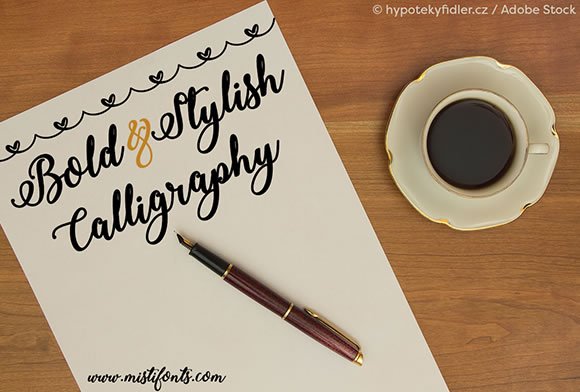
When Words Become Art: The Magic of Bold & Stylish Calligraphy Font
Have you ever been in the middle of a creative project, and suddenly, a spark of inspiration hits you? Maybe it’s the way the light falls on your workspace, or the sound of your favorite music playing in the background. Whatever it is, it’s that moment when everything comes together, and your ideas start flowing. For designers, this moment is often the result of finding the perfect font to bring their vision to life. And that’s where Bold & Stylish Calligraphy Font comes in – a game-changing addition to any design project.
Developed by Misti’s, this stunning font is designed to add a touch of elegance and sophistication to any text. Its bold and stylish lines make it perfect for headings, titles, and even entire paragraphs. Whether you’re working on a wedding invitation, a business logo, or a social media campaign, Bold & Stylish Calligraphy Font is sure to elevate your design to the next level. And as a designer, you know how valuable it is to have a versatile font that can adapt to any project.
Key Features of Bold & Stylish Calligraphy Font
- Unique Characteristics: Hand-drawn calligraphy style with bold and stylish lines, perfect for headings and titles
Designer Review: Bold & Stylish Calligraphy Font
The Bold & Stylish Calligraphy Font is a statement piece for any design project. Here’s my honest review.
- The font is incredibly elegant and sophisticated, making it perfect for high-end branding, wedding invitations, or luxury packaging.
- The bold and stylish feel is consistent throughout the font, making it easy to use and recognize.
- The font is highly customizable, with various weights and styles available to suit different design needs.
- The font may be too bold for some designs, making it difficult to read in certain contexts.
- The font lacks versatility, making it less suitable for everyday use or casual designs.
- The font may not be optimized for digital use, leading to potential readability issues on smaller screens.
Overall, the Bold & Stylish Calligraphy Font is a stunning addition to any design project. While it may have some limitations, its elegance and sophistication make it a great choice for high-end designs. However, it may not be the best fit for everyday use or casual designs.
The Bold & Stylish Calligraphy Font is perfect for:
- Event signage and banners
- Marketing materials and promotional items
Great Vibes is a beautiful, elegant calligraphy font perfect for creating a sophisticated and luxurious feel. It is ideal for use in wedding invitations, branding, and high-end marketing materials. Great Vibes is more refined and polished compared to Bold & Stylish Calligraphy Font, making it a great choice for formal and high-end projects.
Carolyna Pro is a modern calligraphy font that combines elegance and sophistication with a touch of whimsy. It is perfect for use in invitations, branding, and advertising materials. Compared to Bold & Stylish Calligraphy Font, Carolyna Pro has a more modern feel and is ideal for projects that require a mix of elegance and playfulness.
Alex Brush is a handwritten calligraphy font that has a personal and emotional feel to it. It is ideal for use in greeting cards, invitations, and personal branding materials. Alex Brush is more personal and emotive compared to Bold & Stylish Calligraphy Font, making it a great choice for projects that require a touch of warmth and personality.